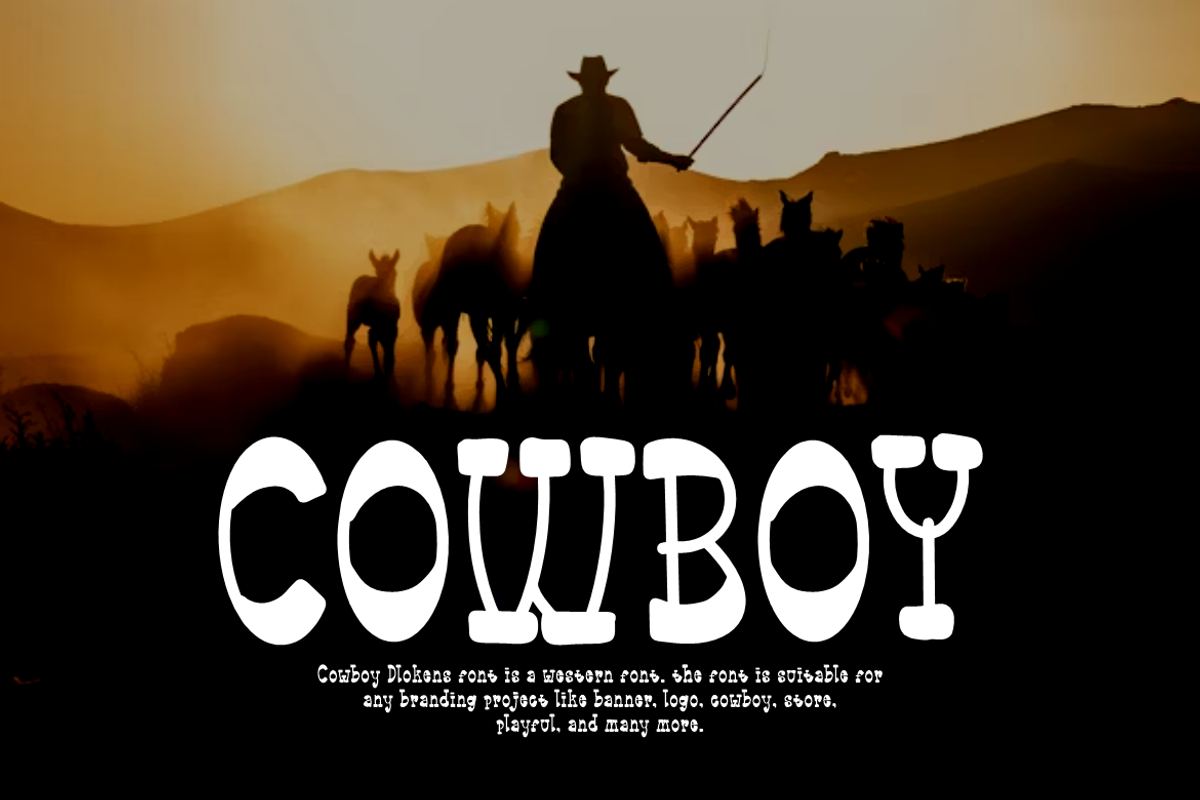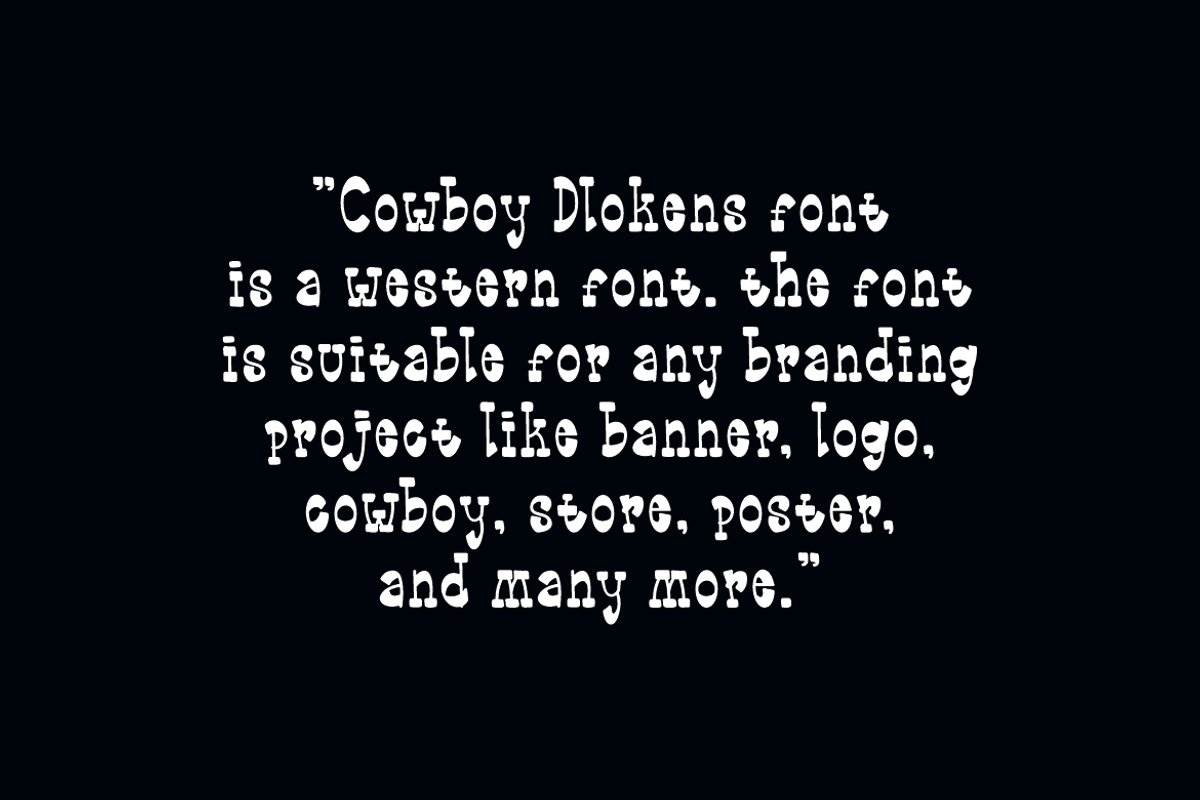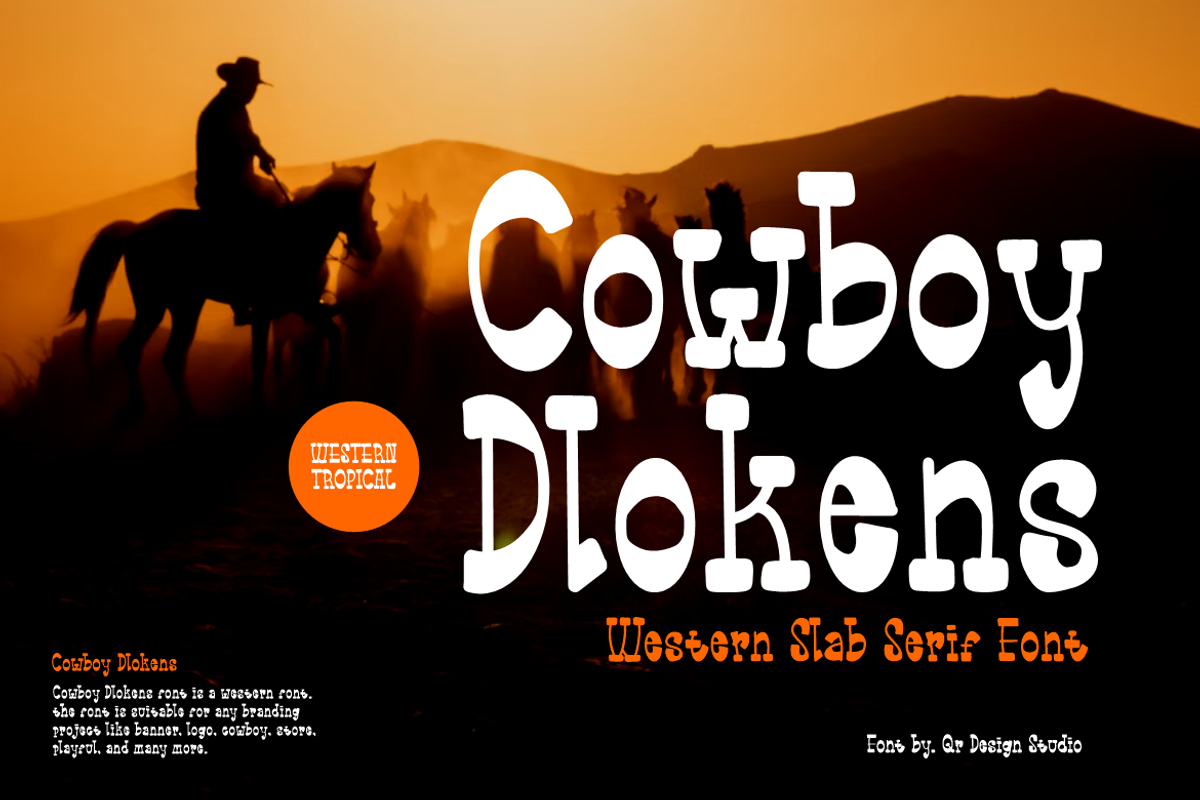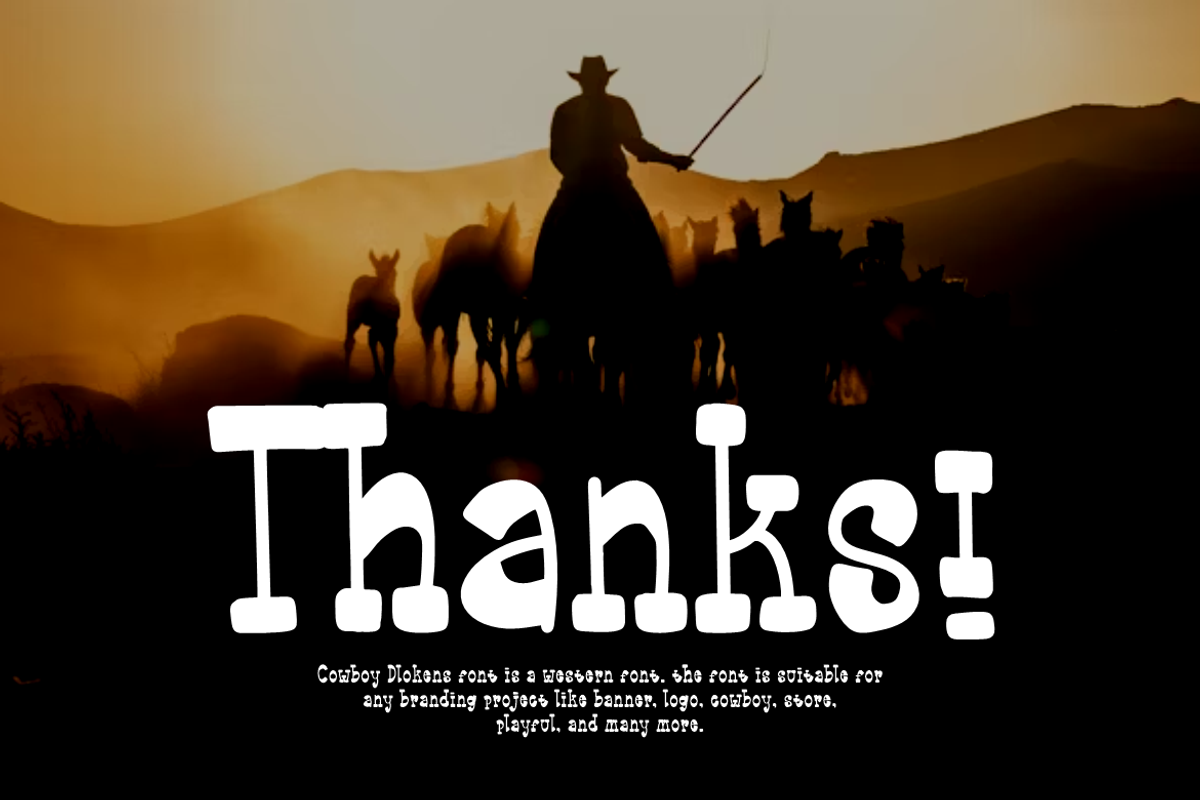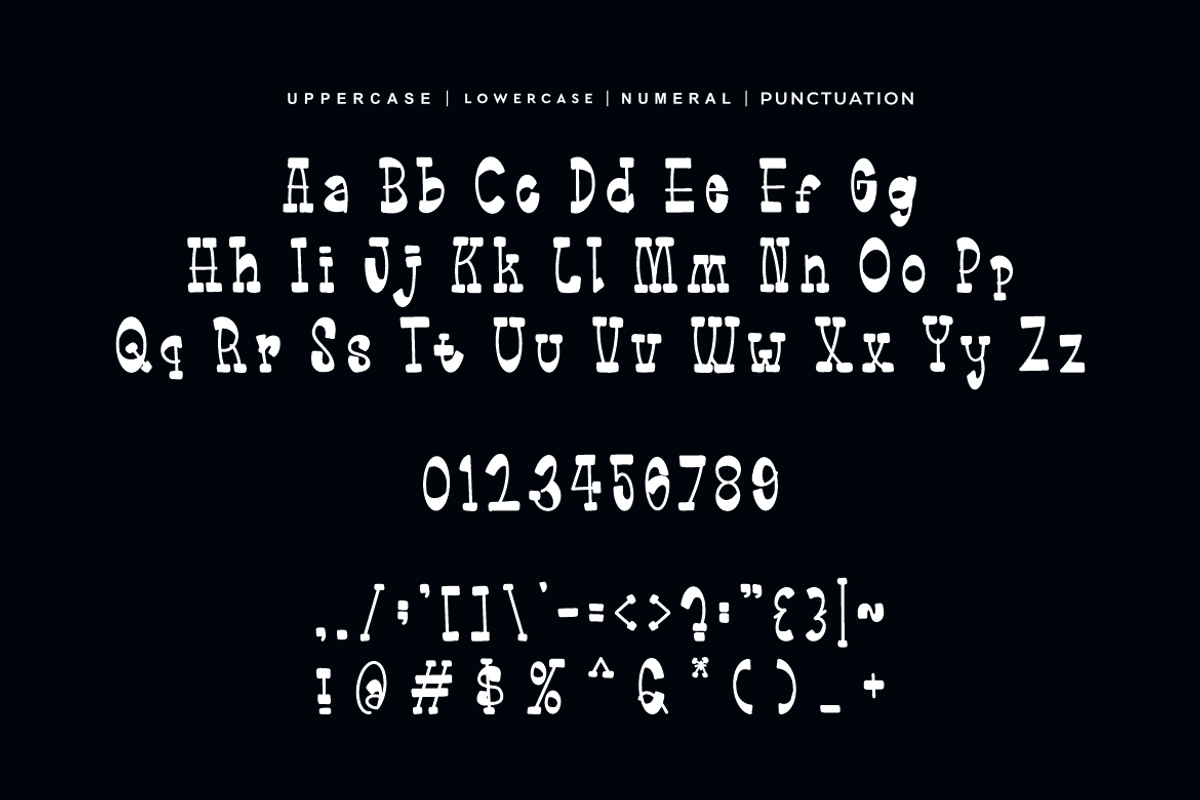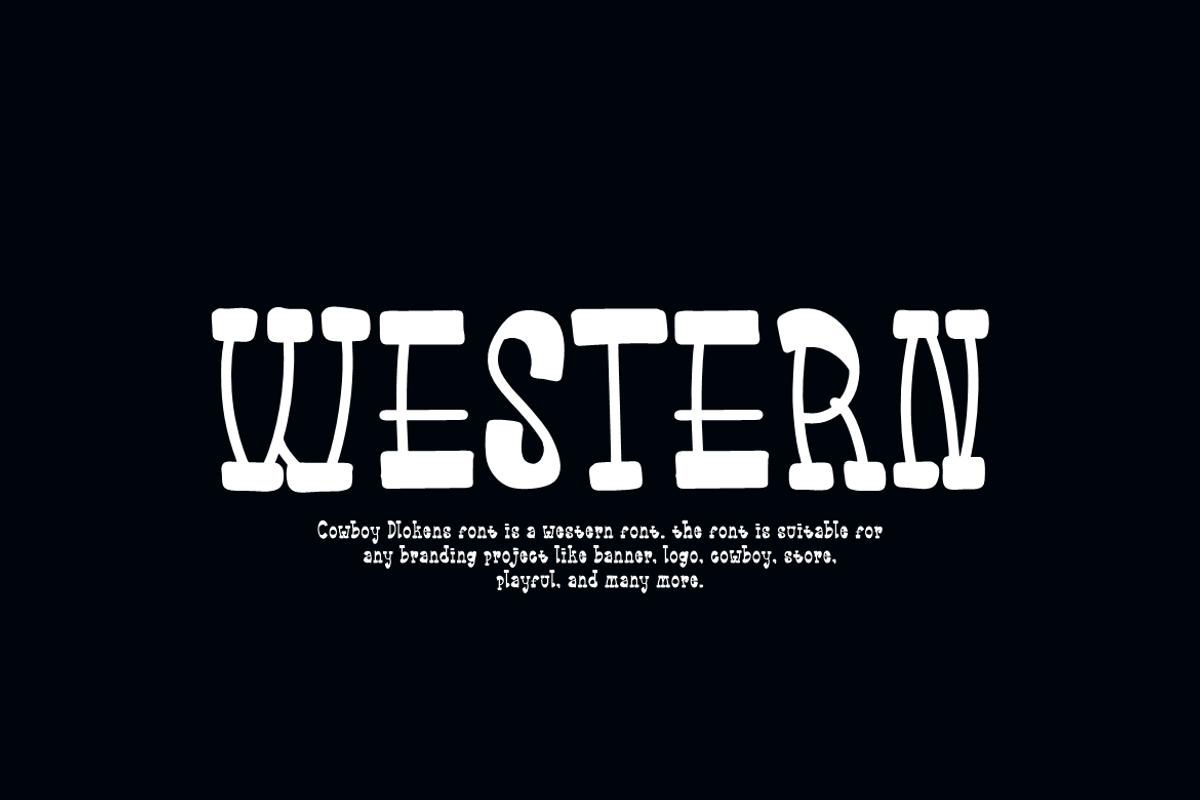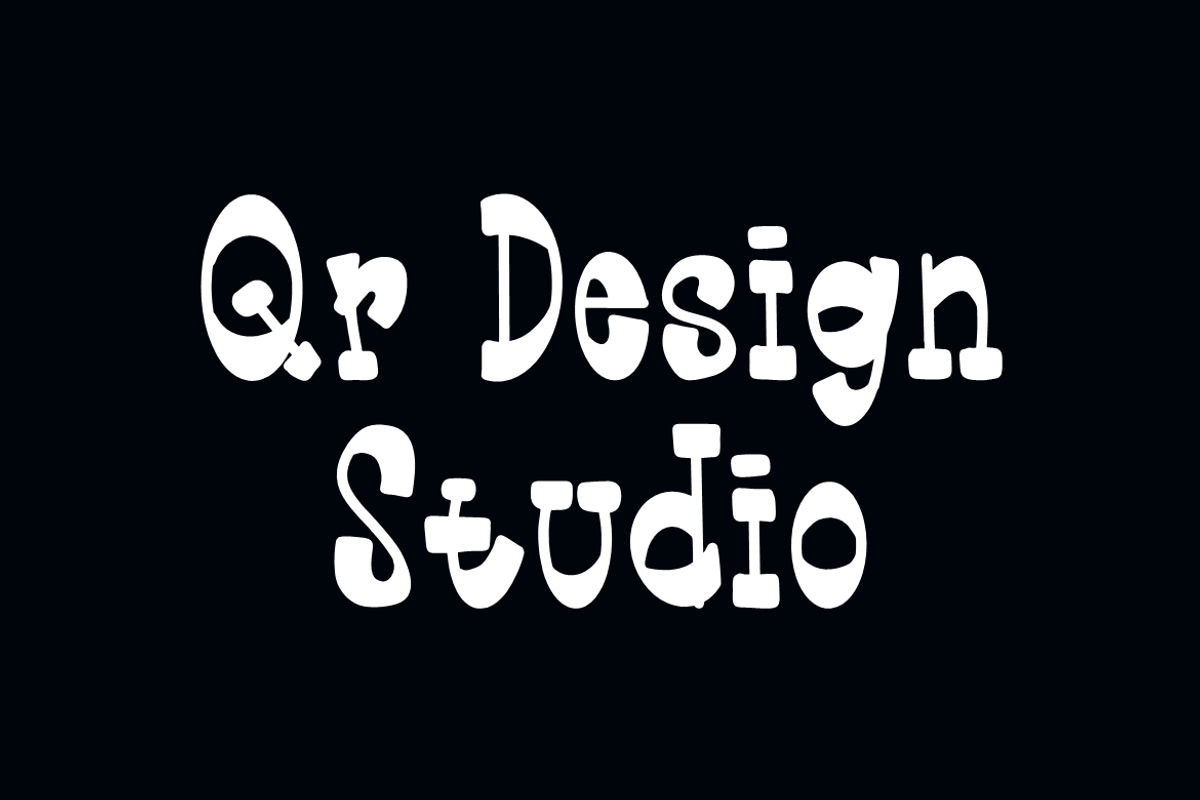
Cowboy Dlokens - Western Font
Cowboy Dlokens Font is a slab serif and authentic display font. The font is suitable for any branding project like poster, logo, sport, and many more. Outstanding in a wide range of contexts.